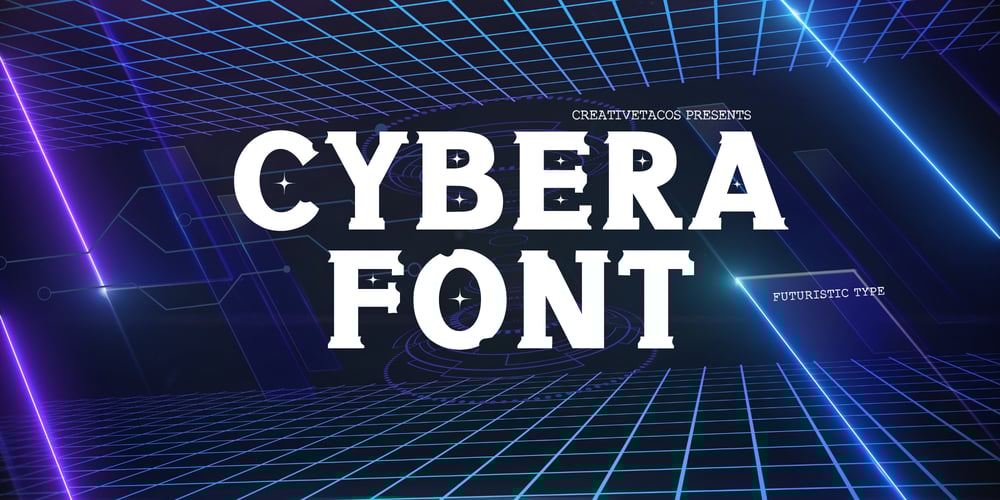
Cybera Font Family was designed by Faraz Ahmad and published by Creativetacos. Cybera contains 1 styles and family package options. Cybera Font is a bold, futuristic typeface designed to make your designs pop. With its strong and thick letterforms, this font is perfect for modern designs, tech-inspired projects, and any artwork that requires a powerful presence. Whether you’re working on posters, branding, digital content, or packaging, Cybera Font adds a sharp, contemporary edge to your text.What’s Included: Standard Uppercase & Lowercase Characters: Complete A-Z alphabet in both upper and lower case for maximum design flexibility. Numerals & Punctuation: Full set of numbers, punctuation marks, and special characters to support all your text needs. Multilingual Support: Cybera Font includes accents and diacritics for international languages, covering Western European, Central European, and South Eastern European languages. Perfect for: Tech and futuristic designs Posters, branding, and marketing Video games, apps, and web design Magazine and editorial layouts Bold headlines and attention-grabbing titles With its modern style and strong character, Cybera Font brings a futuristic feel to any project, making it a versatile addition to your font collection.Download Cybera Font today and make your designs stand out with its bold and unique look.